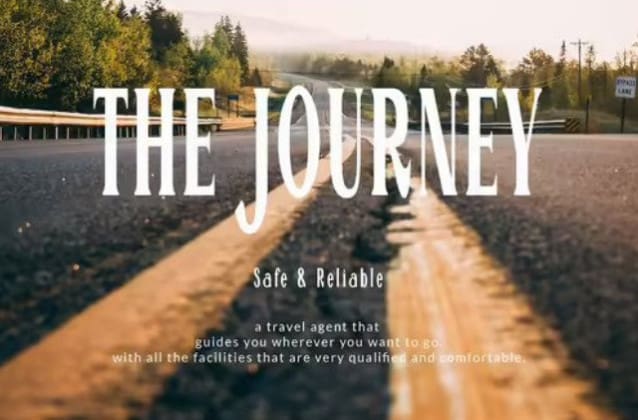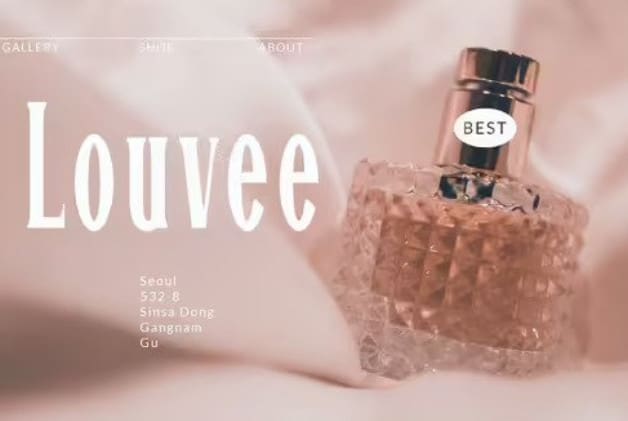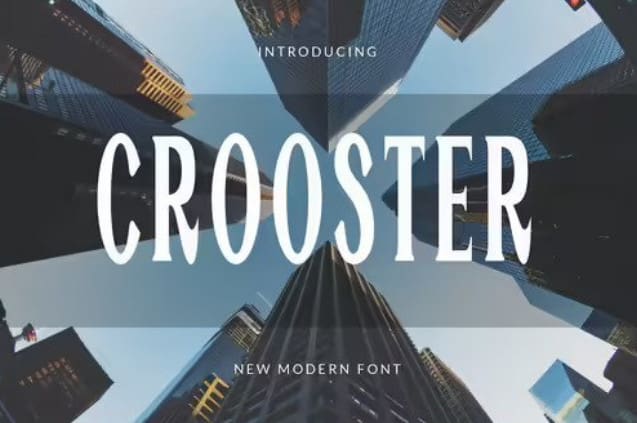
Crooster Font, This serif font is stylish and sophisticated. It has a classic feel with thin strokes, sharp angles, and elegant curves. It is perfect for any project looking to add a touch of class. This font is PUA encoded which means you can access all glyphs and swashes effortlessly!
Crooster Font
CROOSTER